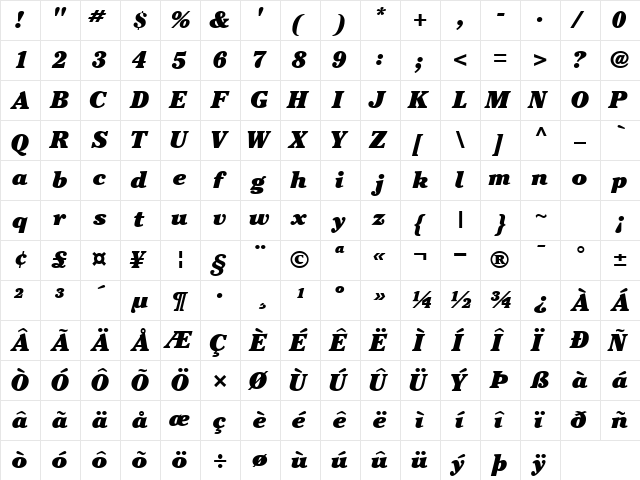
CheltenhamBlackSSK Italic
Design Context for CheltenhamBlackSSK Typeface
CheltenhamBlackSSK offers clean, dependable letterforms without strong stylistic allegiance, making it a practical choice for designers who need flexibility. Its italic angle brings a sense of urgency and motion to the letterforms.